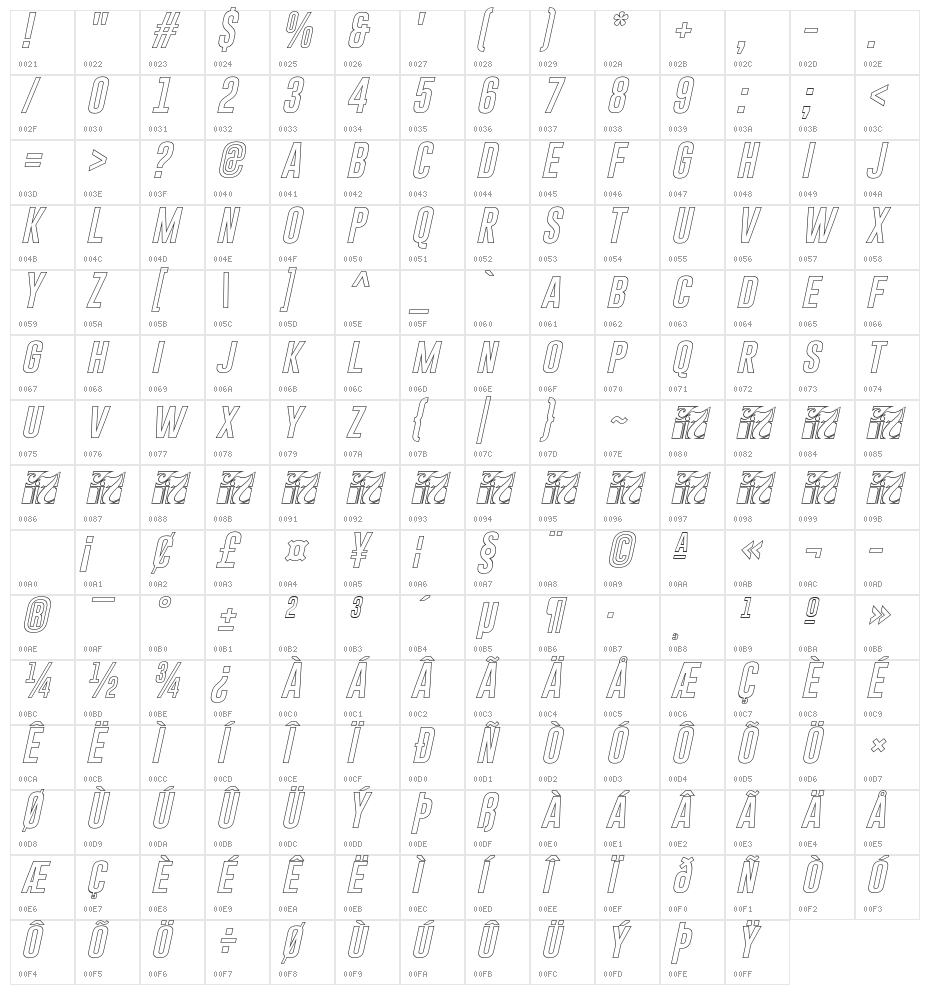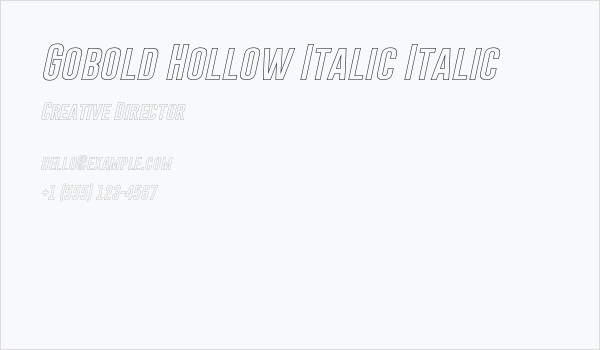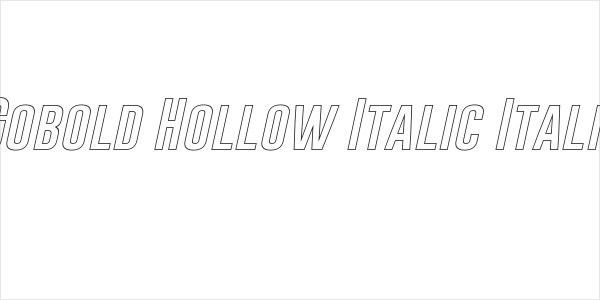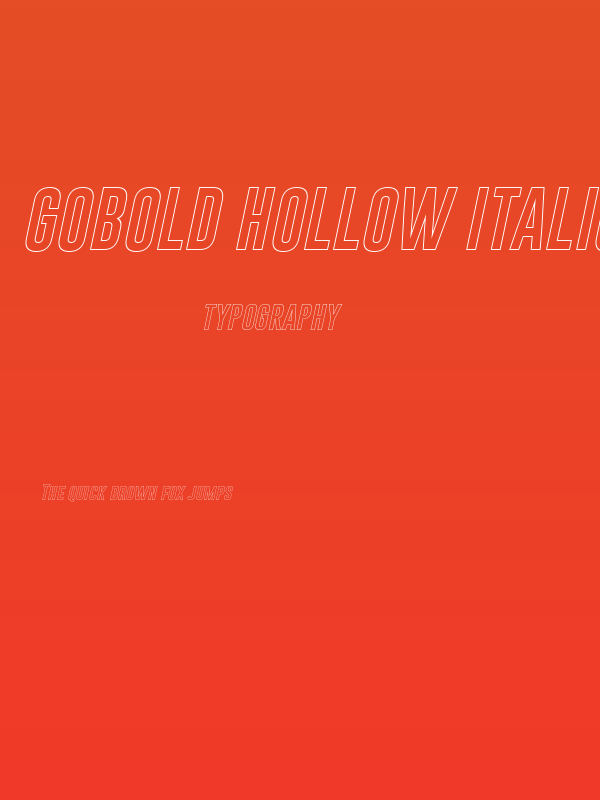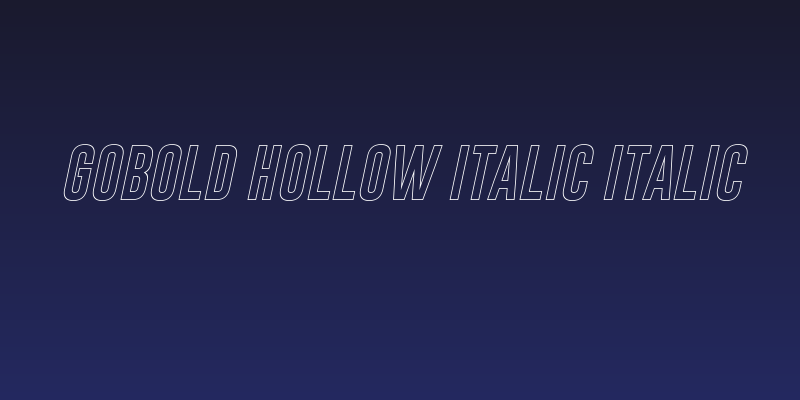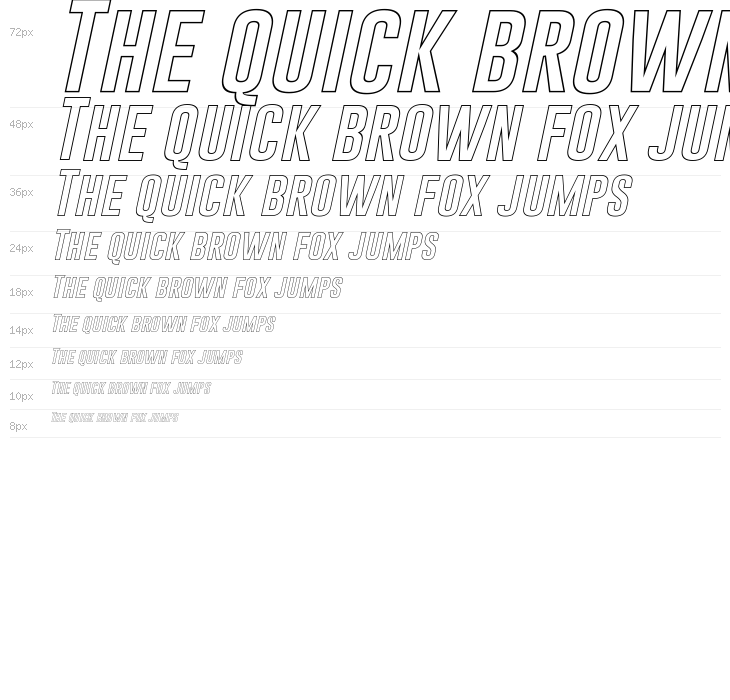
Gobold Hollow Italic Italic Font
Gobold Hollow Italic Italic Description
This font features a bold, hollow design with an italic slant, giving it a dynamic and modern appearance. The uppercase and lowercase letters are consistent in style, with clean, sharp lines and a uniform stroke width that creates a sense of balance and harmony. The numbers and special characters maintain the same aesthetic, ensuring a cohesive look across all text elements. The hollow nature of the font allows for creative use of background colors and textures to show through, making it ideal for eye-catching designs. Its overall style is contemporary and versatile, suitable for a variety of applications.
| Proposed Projects | Ideal for headlines, posters, branding, and any design requiring a striking, modern typeface. |